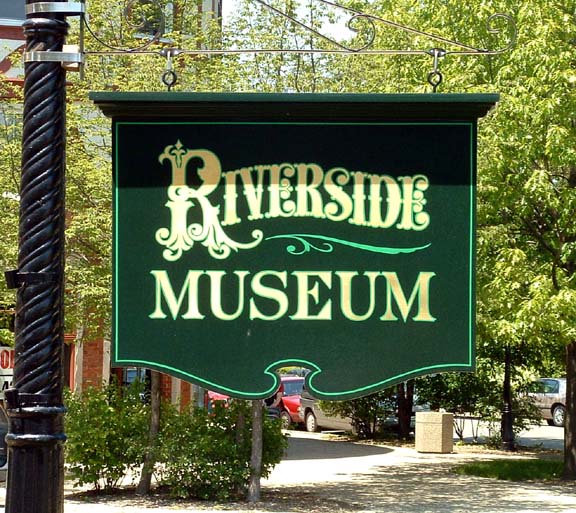
I must say I deeply enjoy reading everyone's posts and have learned much from all those who love this work as much as I do. Just thought you might like to see a few of my favorite jobs. Thanks so much!
Beautiful work Bruce. Great to see your style.
Very nice work! Keep 'em coming!
Wonderful stuff...I'm a real sucker for that antiques piece.
nice gilding and hand lettering, Bruce
Nice work Bruce! Cool convex effect, did you use 2 different types of gold or tint the size? Looks great.
I agree and it would be nice to share some of the methods used on these.
Nice job . I like this work.